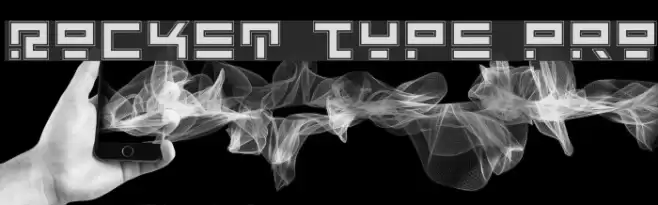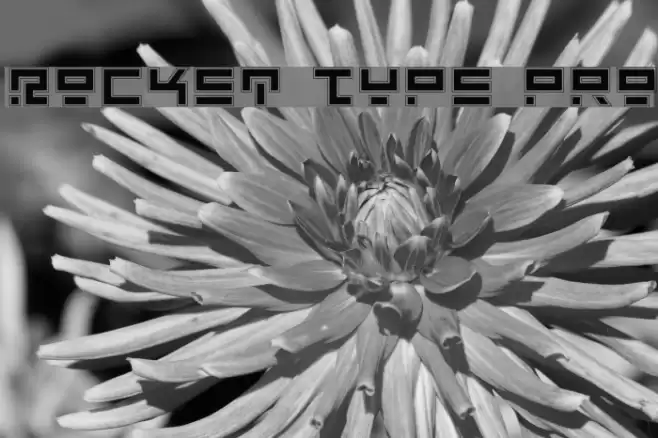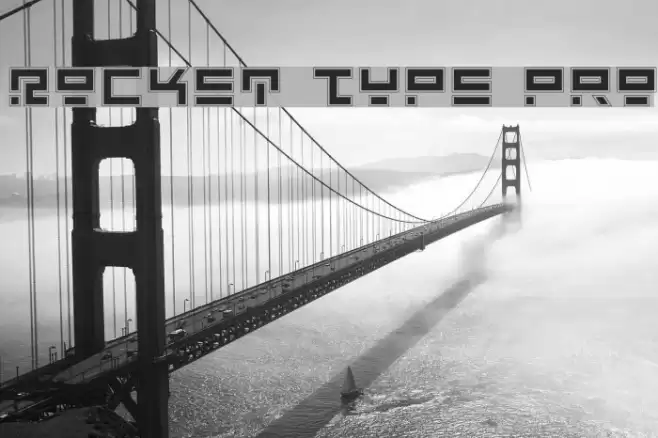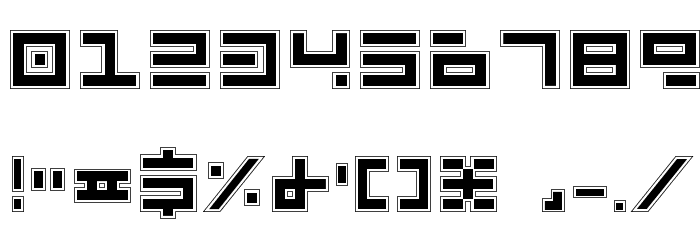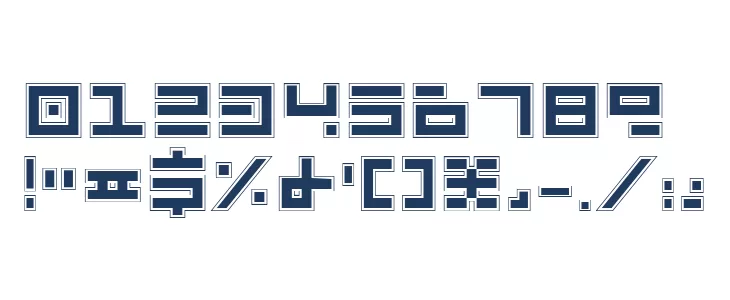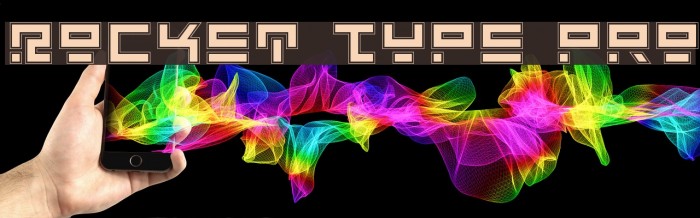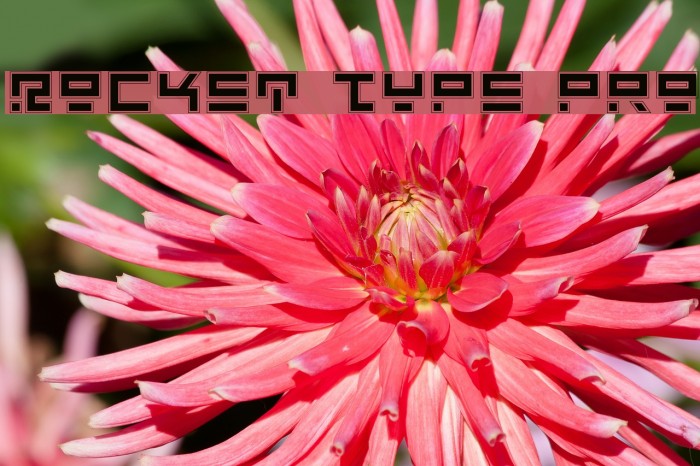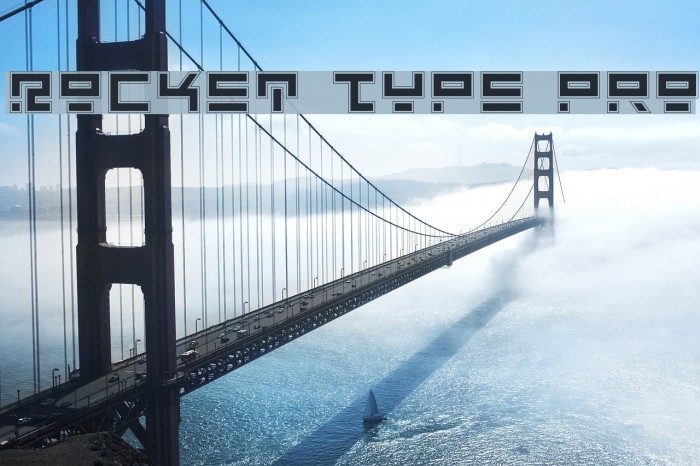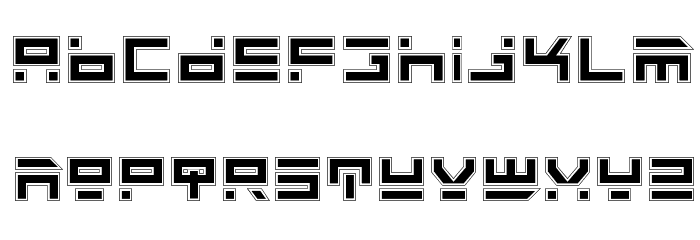
Rocket Type Pro Font
Rocket Type Pro Description
This font features a futuristic and geometric design, characterized by bold, angular shapes and a distinct blocky appearance. Each character is crafted with precision, incorporating sharp edges and a sense of symmetry that gives it a digital, almost robotic feel. The uppercase and lowercase letters maintain a consistent style, with unique cutouts and lines that add to the overall aesthetic. Numbers and special characters follow the same design principles, ensuring a cohesive look across all glyphs. The font's strong visual impact makes it ideal for projects that require a modern and tech-inspired look.
A futuristic, geometric font with bold, angular shapes and a digital aesthetic from Uncategorized fonts.
- Proposed Projects: Ideal for technology branding, sci-fi movie posters, video game titles, and digital art projects.